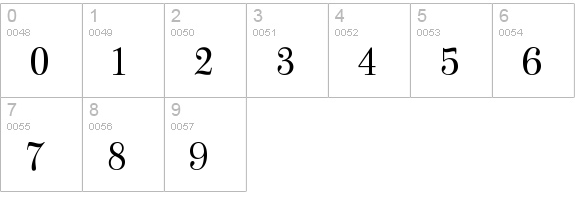
Scotch-Display Font Details
Introducing Scotch-Display, a striking and versatile font that effortlessly combines classic elegance with a modern twist. This font is perfect for adding a touch of sophistication to any design project, whether it be logos, headlines, or invitations. With its clean lines and bold presence, Scotch-Display commands attention and leaves a lasting impression. Its distinctive and timeless aesthetic makes it a go-to choice for designers seeking to create impactful visuals that stand out from the crowd. And the best part? Scotch-Display is available to download for free at FontsMarket.com! This means that you can enjoy the benefits of this exceptional font without any cost, making it accessible to designers of all levels and budgets. With its extensive character set and multiple weights, Scotch-Display offers endless creative possibilities. Whether you're aiming for a sleek and modern look or a more traditional and refined style, this font has you covered. The legibility and versatility of Scotch-Display make it an excellent choice for both print and digital applications. Its well-defined letterforms ensure clear communication across various mediums, while its sleek curves and sharp edges add a touch of sophistication. So why wait? Enhance your design projects with Scotch-Display, the font that effortlessly combines timeless elegance with contemporary flair. Download it for free at FontsMarket.com and unlock a world of creative possibilities today.